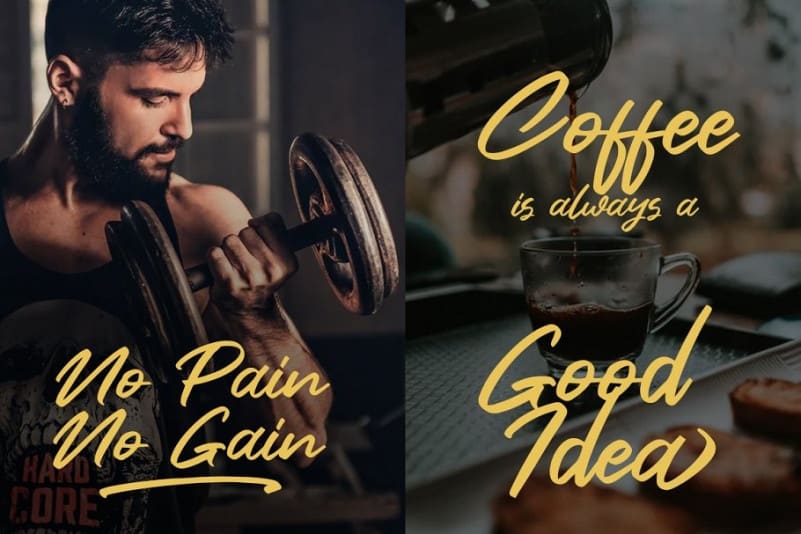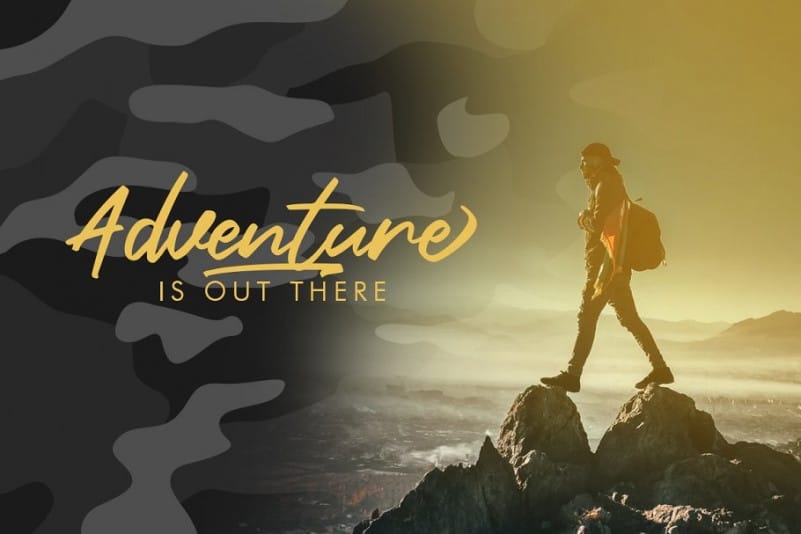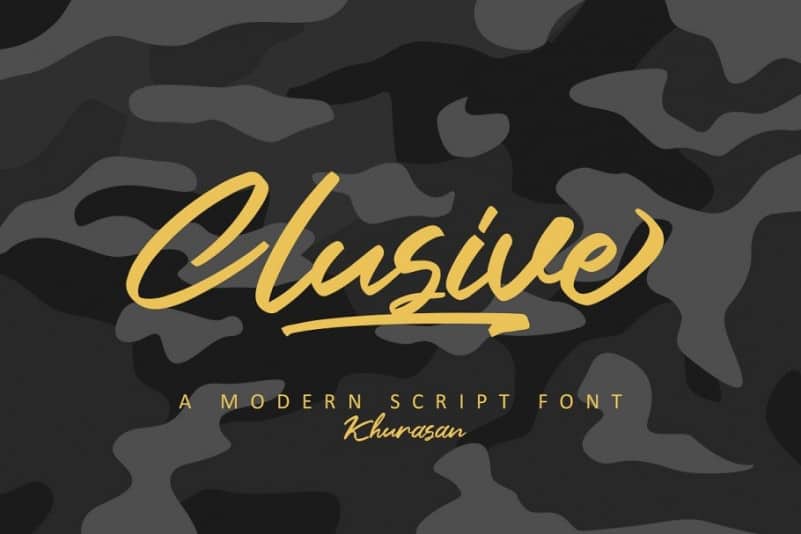
Clusive Handwritten Font
Clusive Handwritten Font is a beautiful script typeface, this font looks natural, elegant and perfect for any extraordinary project. It’s a handwritten typeface from the designer khurasan. A font that is very fresh and unique style handmade. Clusive Signature Typeface is perfectly suited to logo, stationery, poster, apparel, branding, wedding invitation, card, tagline, layout design, and much more !!